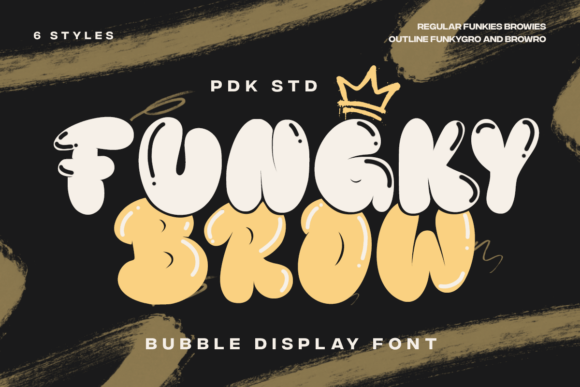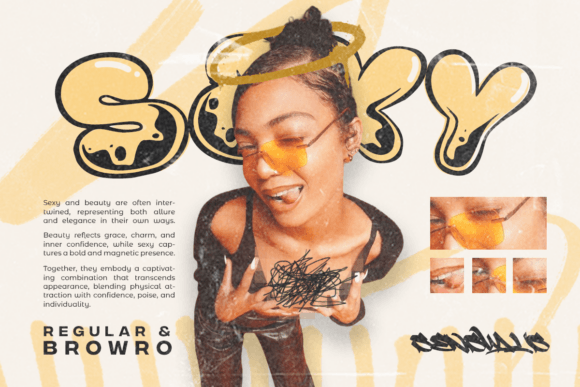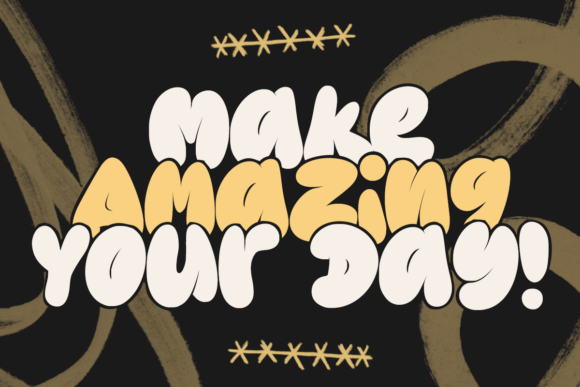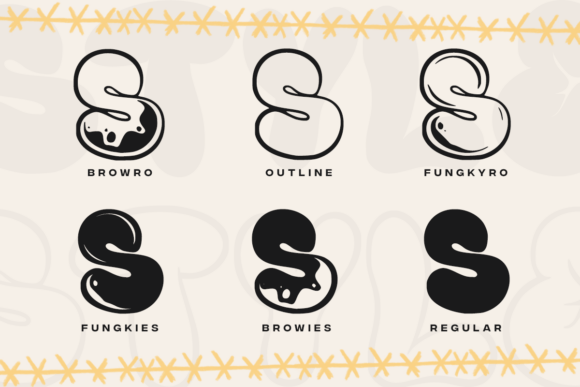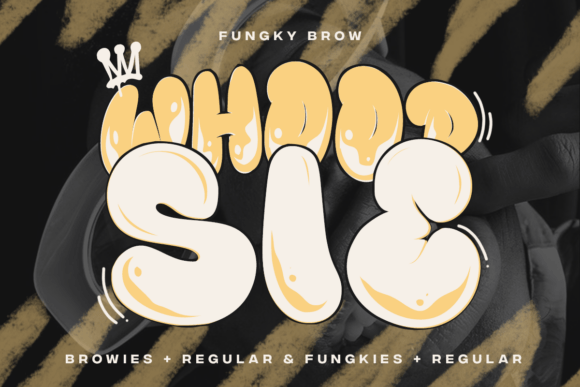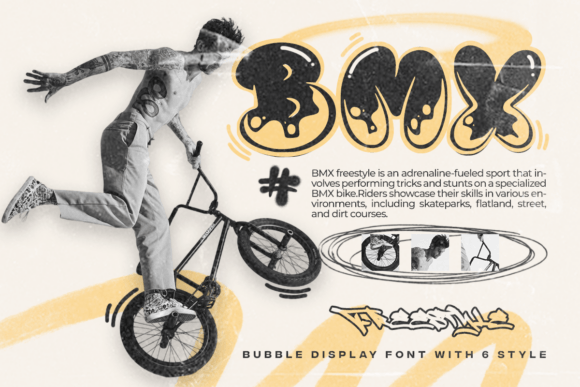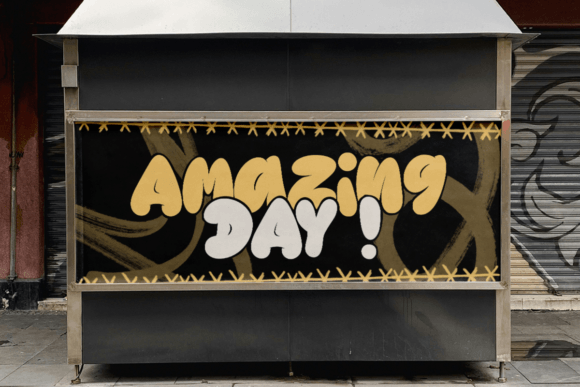
Funky Up Your Typography Game
Have you ever stared at a blank canvas, waiting for the perfect font to strike inspiration? For designers, finding that elusive combination of style and personality can be a creative quest. And then, it hits you – the perfect font to elevate your design and make it truly unforgettable. This is where the Funky Brow Font comes in, a vibrant bubble graffiti font that adds a much-needed dose of energy and flair to your typography.
With its six unique styles, the Funky Brow Font family is a treasure trove of creative possibilities. From the clean base of the Regular style to the bold, eye-catching drop bubbles of Browies and Funkygro, each style offers a distinct flair that’s sure to make your designs stand out. Whether you’re working on graffiti art or streetwear projects, this font is a valuable asset in your design toolkit.
Funky Brow Font Key Features
- Unique Characteristics: Funky Brow Font features a bold, playful design with a mix of sans-serif and script elements, creating a fun and energetic feel.
Funky Brow Font Review
Overall, I think Funky Brow Font is a fun, quirky font that’s perfect for designers looking to add some personality to their projects. ✨ It’s got a great energy and could work really well for anything from music festivals to edgy fashion brands. ✨
Here are some things that really stand out:
- Funky Brow Font has a lot of flair and is great for making a statement.
- It’s highly customizable, allowing you to adjust the spacing, kerning, and more to get the perfect look.
- The font is available in a variety of weights, from light to bold, giving you plenty of options for different designs.
Of course, no font is perfect, and Funky Brow is no exception. Here are a few things to keep in mind:
- ⚠️ The font can be a bit overwhelming in large quantities, so use it sparingly to avoid visual overload.
- ⚠️ Some of the characters may not be as smooth or refined as other fonts, which could be a problem for designers who prioritize typography.
Overall, I’d say Funky Brow Font is a solid choice for designers who want to add some edge to their projects. It’s fun, it’s quirky, and it’s definitely eye-catching. Just be sure to use it thoughtfully to get the most out of it.
To get the most out of the Funky Brow Font, use it sparingly to add a touch of whimsy to your designs. Experiment with different font sizes and colors to create a unique look.
The Funky Brow Font is perfect for:
- Adding a playful touch to social media graphics
- Creating eye-catching headlines for advertisements
- Designing fun and quirky invitations
Alternatives to Funky Brow Font
Funky Brow Font is a bold and playful font often used for headings, titles, and emphasis in design. Here are some alternatives for designers.
Great Vibes is a modern script font perfect for creative and artistic projects. It’s ideal for headings, titles, and quotes where a touch of elegance and sophistication is needed.
Compared to Funky Brow Font, Great Vibes has a more refined and polished look, making it suitable for high-end projects. While Funky Brow Font is more playful, Great Vibes is more versatile and can be used in a wider range of designs.